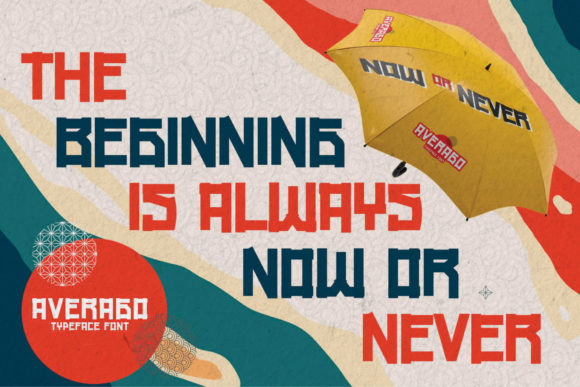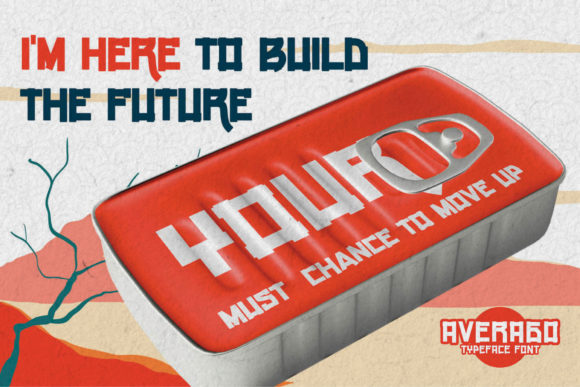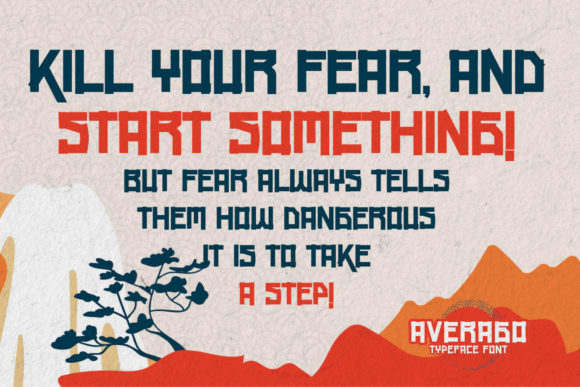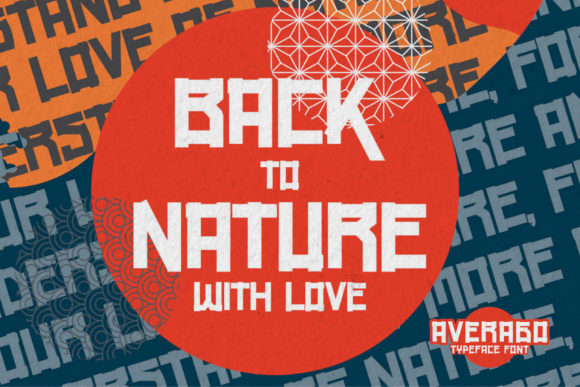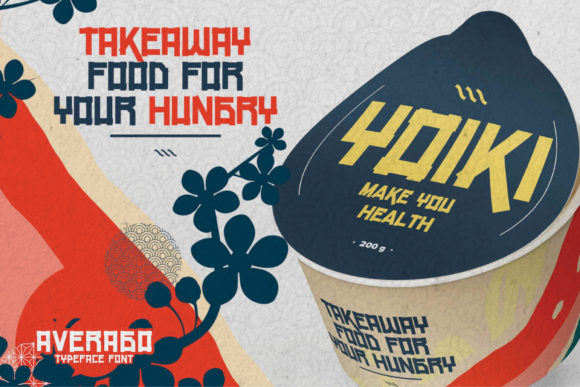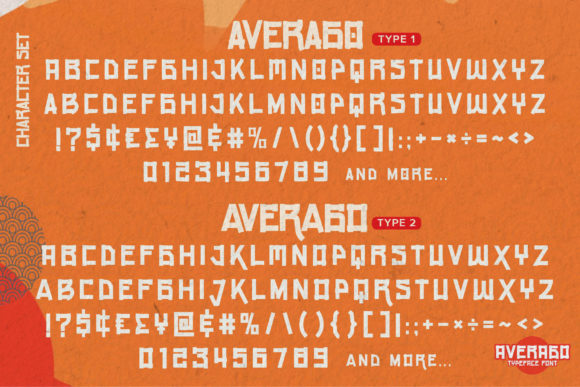
Averago Font: The Ultimate Display Font for Bold Statements
In the world of typography, fonts play a crucial role in conveying messages, evoking emotions, and creating a lasting impression. For designers, crafters, and anyone looking to make a bold statement, Averago Font is a game-changer. This unique, bold, and thick lettered display font is designed to grab attention, convey confidence, and add an assertive vibe to any project.
What is Averago Font?
Averago Font is a display font that stands out from the crowd with its distinctive, bold, and thick lettering style. Its unique design makes it perfect for use in a variety of applications, including games, science projects, sporting events, and more. Whether you’re looking to create a striking logo, an eye-catching poster, or a bold title, Averago Font is the perfect choice.
Key Features of Averago Font
- Unique and Bold Design: Averago Font boasts a one-of-a-kind design that is sure to turn heads. Its bold and thick lettering style makes it perfect for creating striking headlines, titles, and logos.
- Highly Versatile: This font is incredibly versatile and can be used in a wide range of applications, from digital projects to print materials.
- Easy to Read: Despite its bold design, Averago Font is surprisingly easy to read, making it perfect for use in titles, headings, and other display text.
- Perfect for Games and Sporting Events: The font’s bold and assertive design makes it a natural fit for games, sporting events, and other high-energy applications.
Use Cases for Averago Font
Averago Font is a versatile font that can be used in a wide range of applications. Here are some use cases where Averago Font truly shines:
- Games: Use Averago Font to create bold and eye-catching titles, logos, and game elements that will grab players’ attention.
- Science Projects: Add a touch of professionalism and sophistication to your science projects with Averago Font’s bold and assertive design.
- Sporting Events: Create striking posters, flyers, and other promotional materials for sporting events using Averago Font’s bold and energetic design.
- Logos and Branding: Use Averago Font to create a bold and memorable logo that will help your brand stand out from the competition.
Tips for Using Averago Font
Averago Font is a unique, bold, and thick lettered display font that is perfect for making a statement. Its versatility, ease of use, and bold design make it a must-have for designers, crafters, and anyone looking to add an assertive vibe to their projects. Whether you’re working on a game, science project, sporting event, or logo, Averago Font is the perfect choice. So why wait? Download Averago Font today and start creating bold and eye-catching designs that will leave a lasting impression!